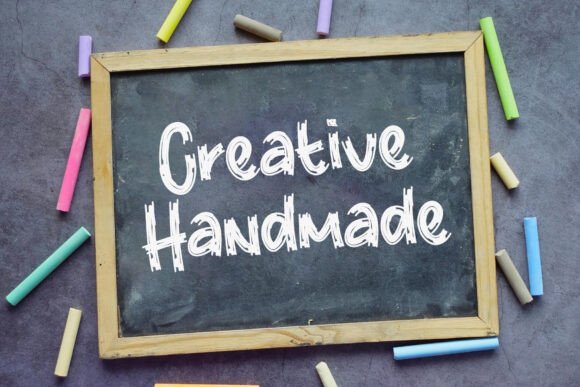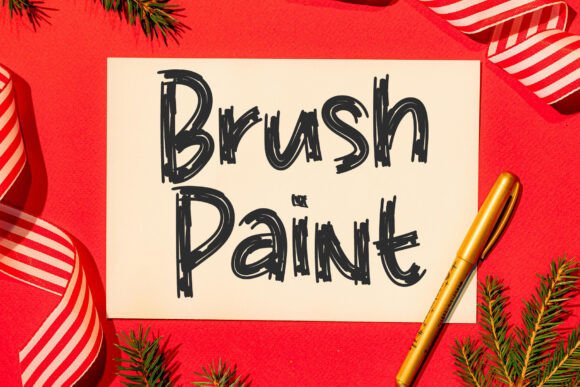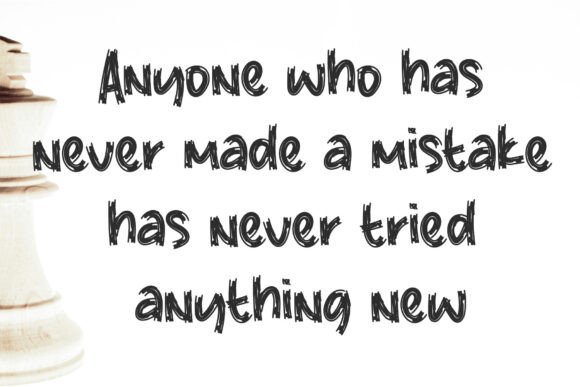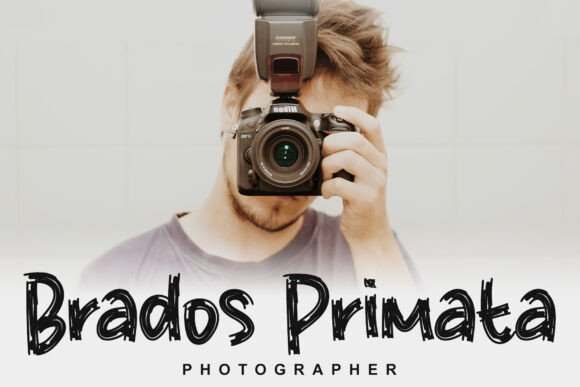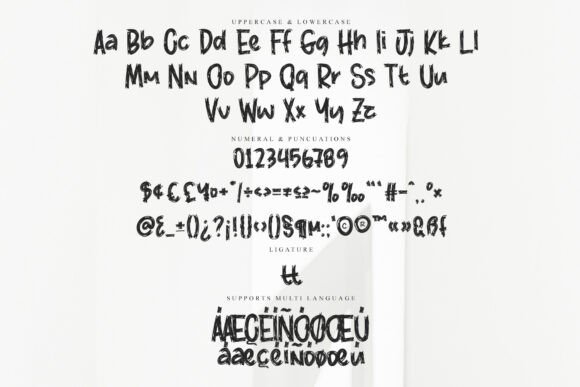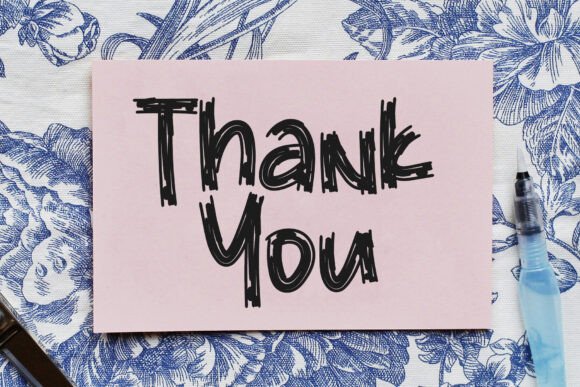
For designers, finding the perfect font can be a game-changer. That’s why we’re excited to introduce you to the Ballpoint Writing Font, a typeface designed to make a lasting impression in large sizes. From headlines and titles to logos and posters, this font is perfect for those who want to add a touch of drama and artistic flair to their designs.
With its unique styling and visual impact, the Ballpoint Writing Font is a valuable addition to any designer’s toolkit. Whether you’re working on a marketing campaign, a brand identity, or a creative project, this font is sure to elevate your designs to the next level.
Key Features of Ballpoint Writing Font
- Font Style: The Ballpoint Writing Font is a casual, handwritten font designed to mimic the look of handwriting with a ballpoint pen.
- Unique Characteristics: The Ballpoint Writing Font has a distinctive, hand-written look with subtle variations in line width and spacing to give it a natural, organic feel.
Designer Review: Ballpoint Writing Font
Overall, I think the Ballpoint Writing Font has some great qualities, but it also falls short in a few areas. ✨ Here are some of the things that I think work well:
- Unique aesthetic: The Ballpoint Writing Font has a distinctive, hand-written feel that sets it apart from more common sans-serif fonts.
- Good for creative projects: The font’s quirky, expressive nature makes it a great choice for creative projects like art, design, or writing.
- Wide character set: The font includes a wide range of characters, including accents and symbols, making it a good choice for projects that require international characters.
However, there are also some limitations to consider: ⚠️
- Limited legibility: At smaller font sizes, the Ballpoint Writing Font can be difficult to read, especially for longer blocks of text.
- No clear hierarchy: The font’s lack of a clear hierarchy makes it difficult to create visually appealing typography.
- Not ideal for body text: While the font is great for headlines or titles, it’s not the best choice for large blocks of body text.
Overall, I think the Ballpoint Writing Font is a great choice for specific projects, but it’s not a one-size-fits-all solution. With some careful planning and consideration, it can be a great addition to your design toolkit.
Use the Ballpoint Writing Font to create a unique and eye-catching visual effect.
Pair it with a bold background color or texture to make it stand out.
Experiment with different font sizes and styles to create a dynamic look.
The Ballpoint Writing Font is perfect for:
Creating attention-grabbing headlines and titles.
Designing social media graphics and advertisements.
Adding a personal touch to invitations and greeting cards.
Alternatives to Ballpoint Writing Font for Designers
Great Vibes is a beautiful, modern script font that works well for titles and headings. It’s perfect for creating a relaxed, casual feel in your designs. Compared to Ballpoint Writing Font, Great Vibes has a more elegant and refined look, making it suitable for premium and high-end brands.
Alex Brush is a handwritten font with a touch of elegance and sophistication. It’s ideal for use in invitations, wedding designs, and other creative projects. While Ballpoint Writing Font has a more casual and everyday feel, Alex Brush is more refined and suitable for special occasions.